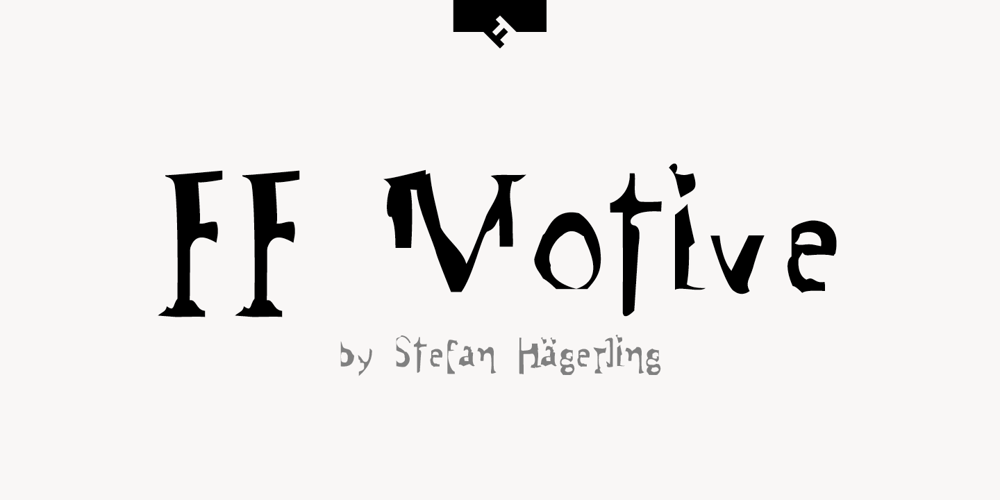
FF Motive Font Family was designed by Stefan Hägerling and published by FontFont. FF Motive contains 3 styles and family package options. German type designer Stefan Hägerling created this display FontFont in 1995. The family contains 3 weights: Light, Regular, and Bold and is ideally suited for music and nightlife. FF Motive provides advanced typographical support with features such as ligatures. It comes with proportional oldstyle figures.